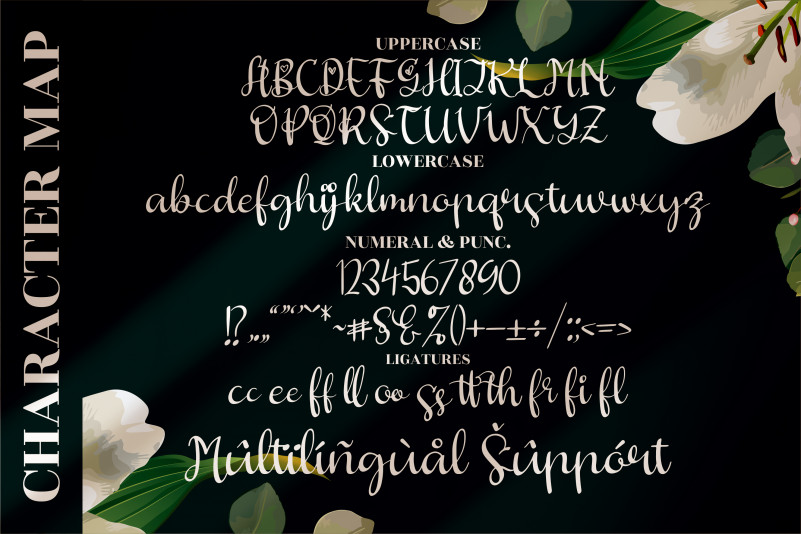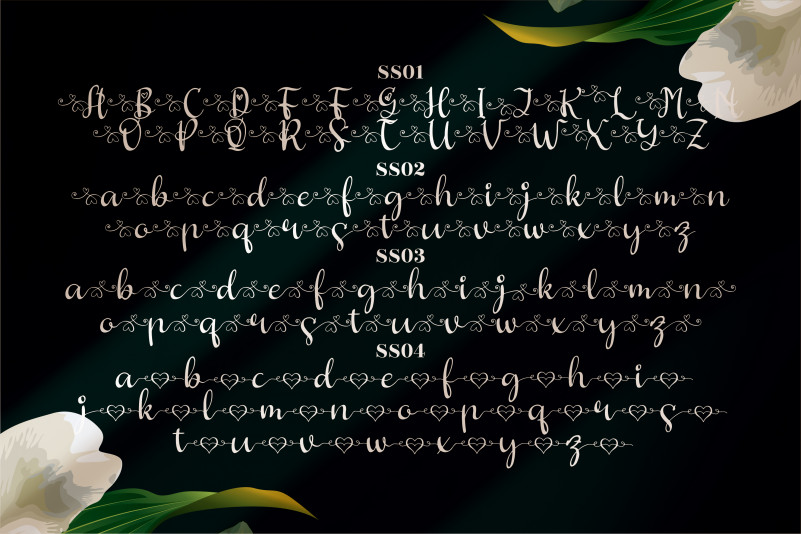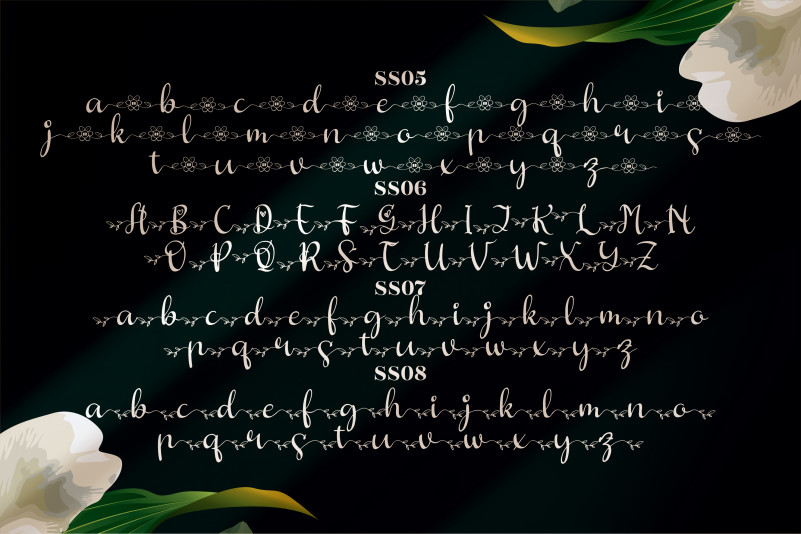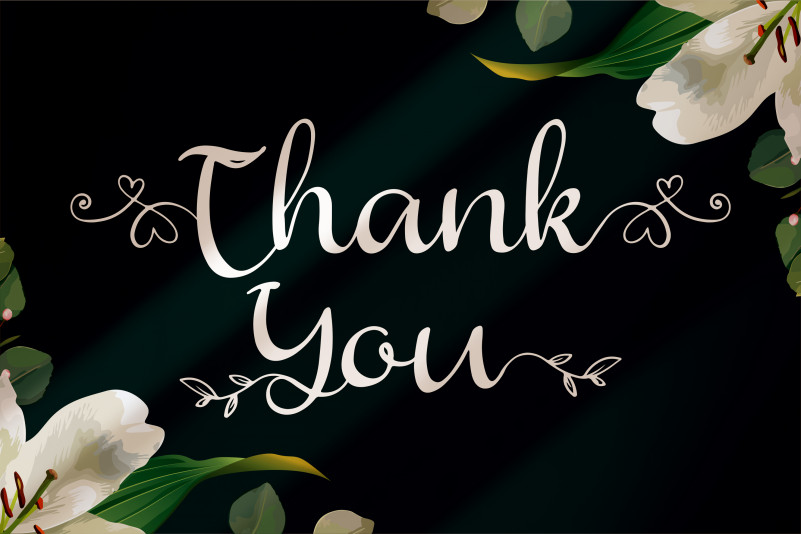
Butterfly Hellyna Font is a delicate script font. Butterfly Hellyna Font is neatly crafted and highly detailed. Whatever the topic, this font will be a wonderful asset to your font library, as it has the potential to enhance any creation.